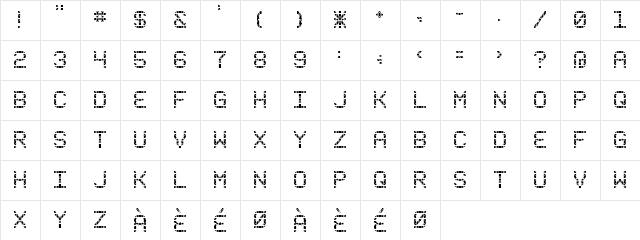
CloseCallOlympics Regular
Design Context for CloseCallOlympics Typeface
CloseCallOlympics takes a measured approach to typography — its balanced proportions and neutral character make it a reliable workhorse for both digital and print work.